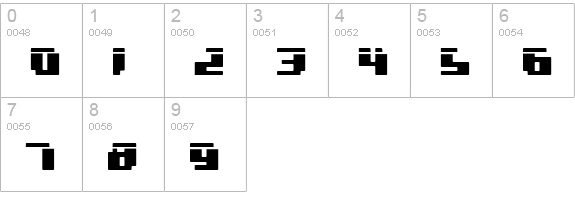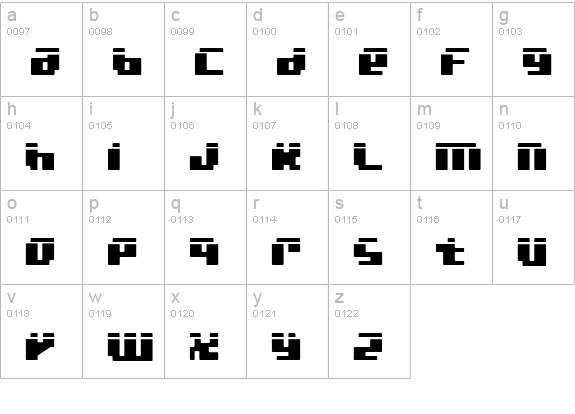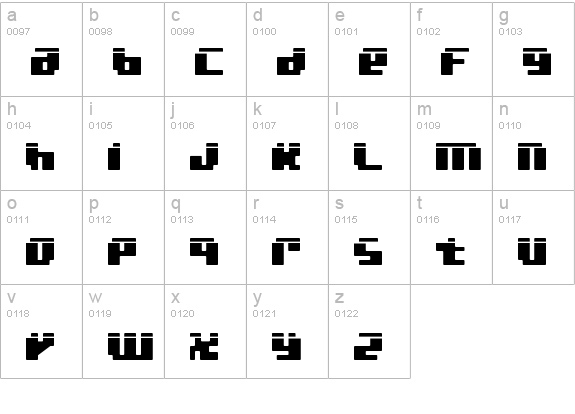
Introducing the captivating Bad Robot Laser Font, a cutting-edge typeface that combines futuristic design elements with a touch of edgy sophistication. This font exudes a bold and dynamic energy, perfect for projects that require a modern and tech-savvy look. The sharp, laser-inspired details create a sense of sleek precision, making it an ideal choice for sci-fi, gaming, or technology-related designs. Best of all, the Bad Robot Laser Font is available for free download at FontsMarket.com. Whether you're a graphic designer, web developer, or just someone looking to add a unique touch to your projects, this font is a must-have in your creative arsenal. Embrace the power of modern design with the Bad Robot Laser Font and watch your creations come to life with style and flair.